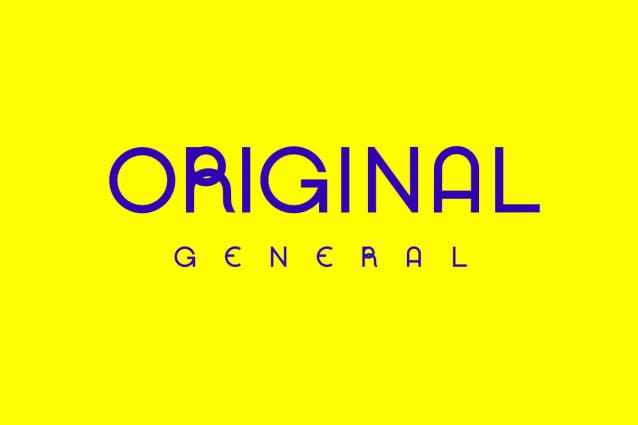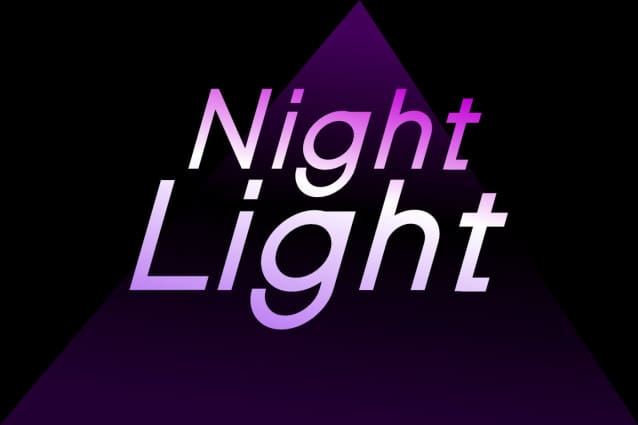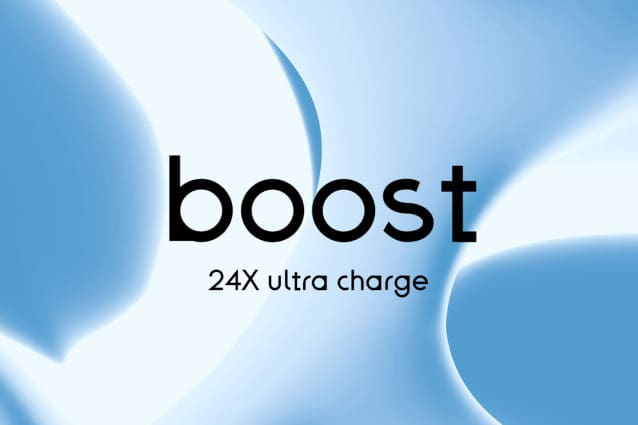
FR Grey Fit Font
FR Grey Fit Font This font, You can use it as a logo, badge, insignia, packaging, headline, poster, t-shirt/apparel, greeting card, and wedding invitation.
Designer Name: ffeeaarr